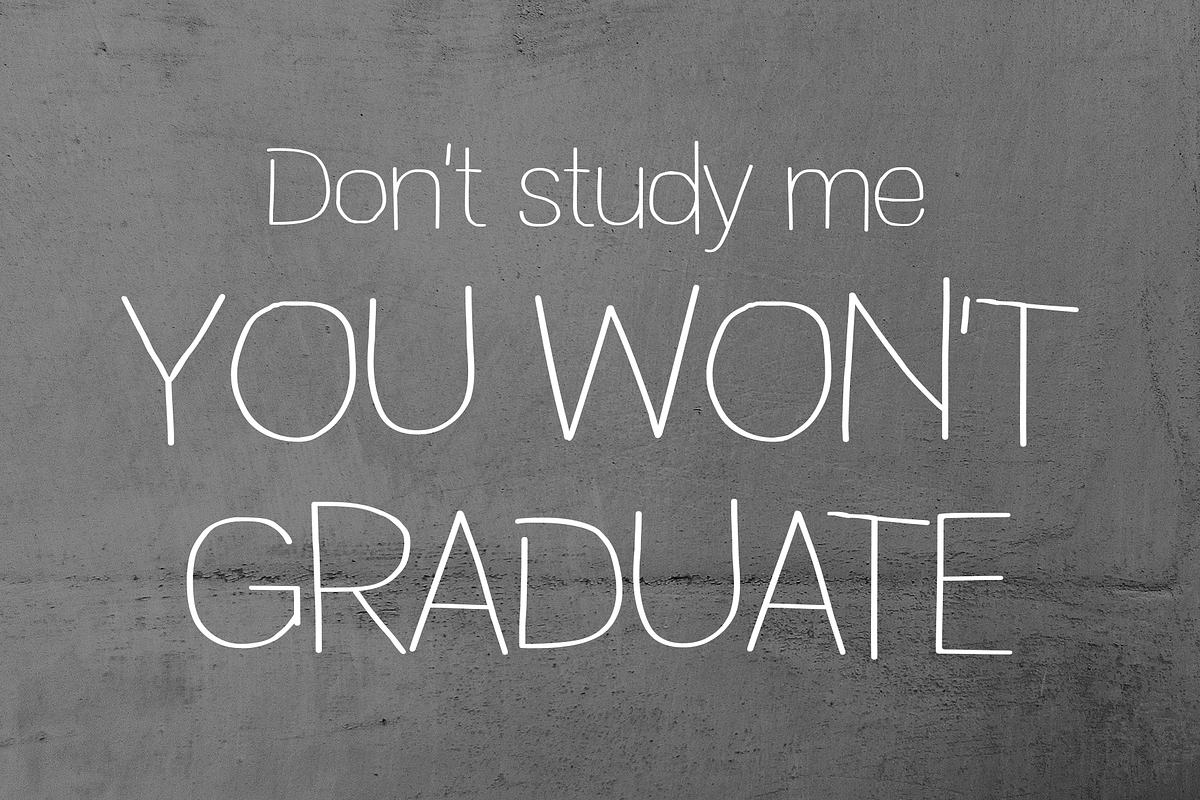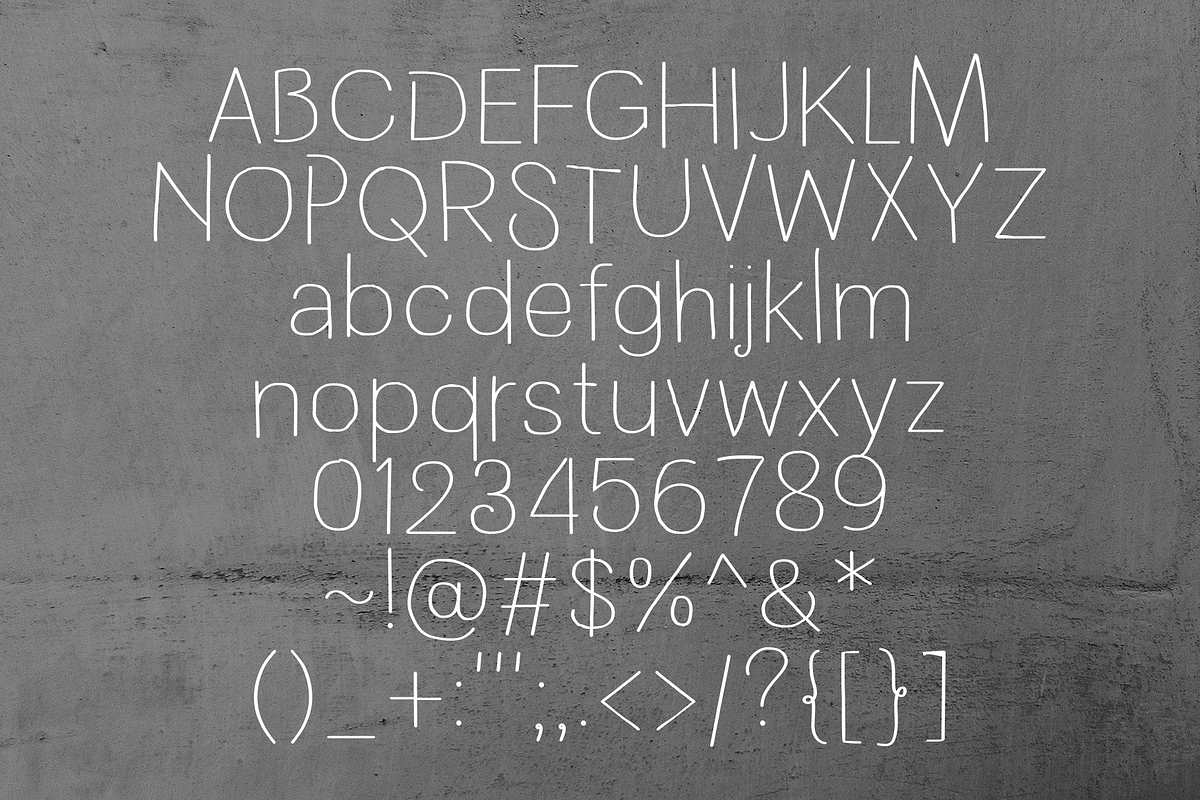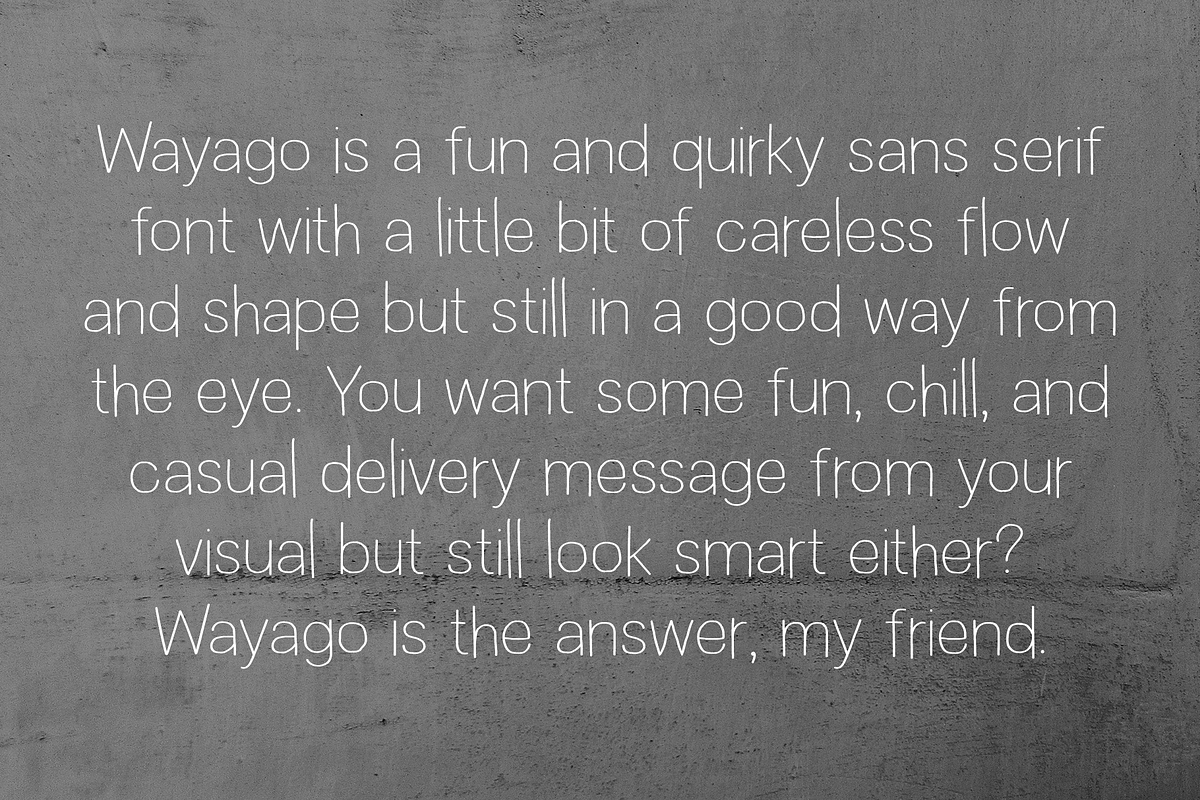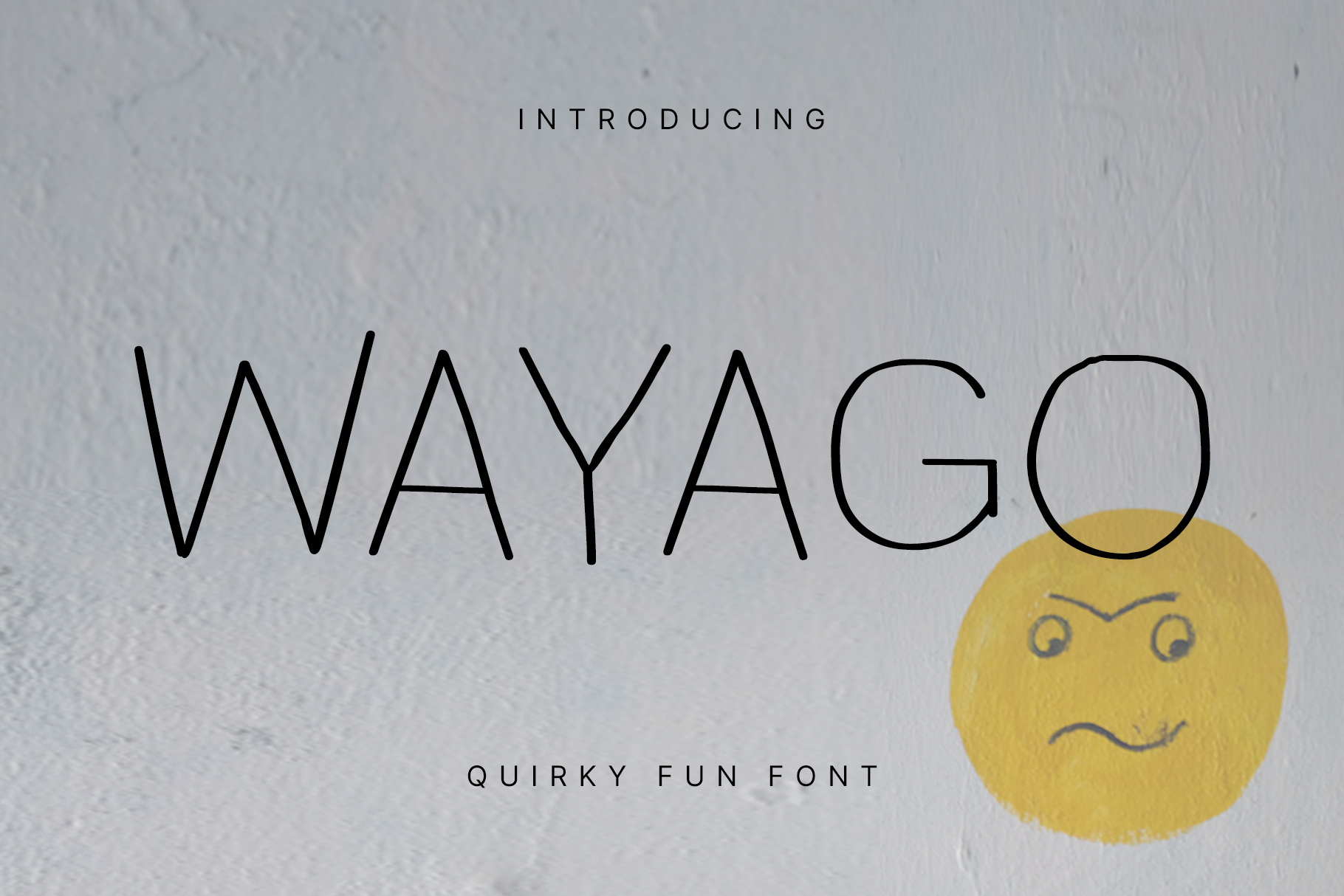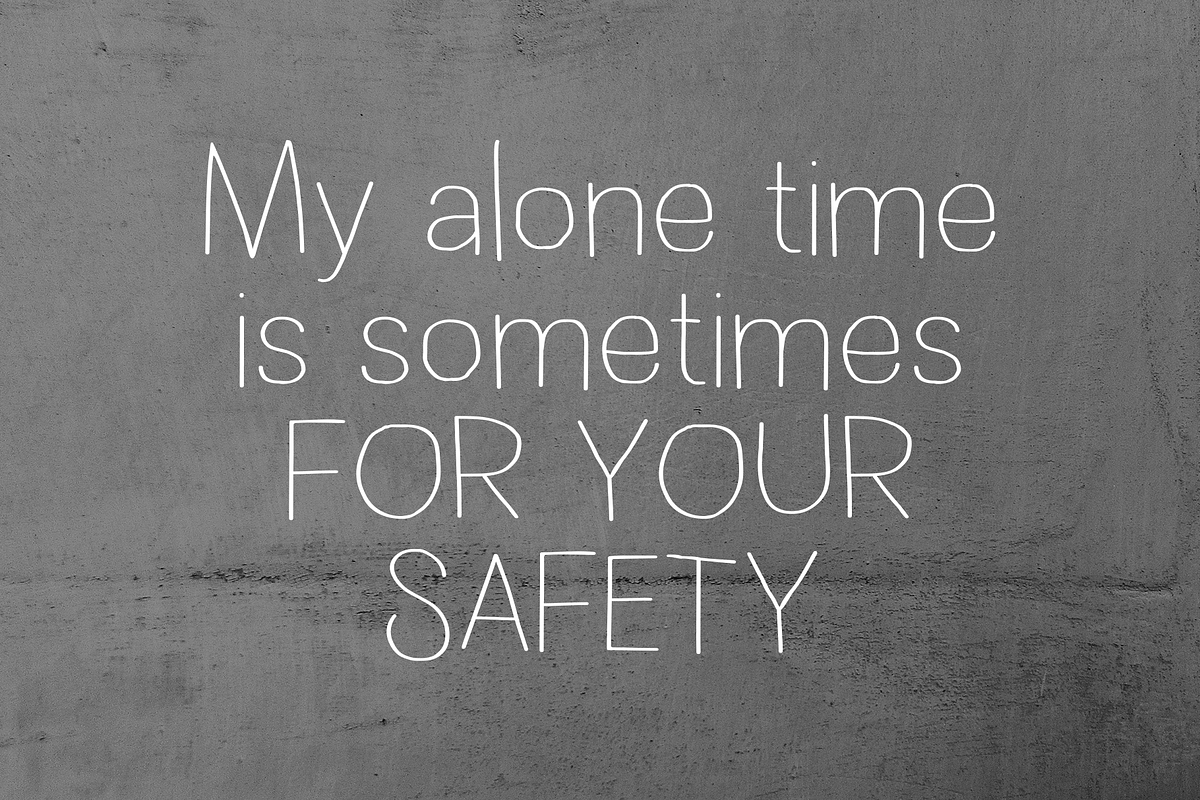
Wayago - Quirky Fun Fonts
Wayago is a fun and quirky sans serif font with a little bit of careless flow and shape but still in a good way from the eye. You want some fun, chill, and casual delivery message from your visual but still look smart either? Wayago is the answer, my friend.